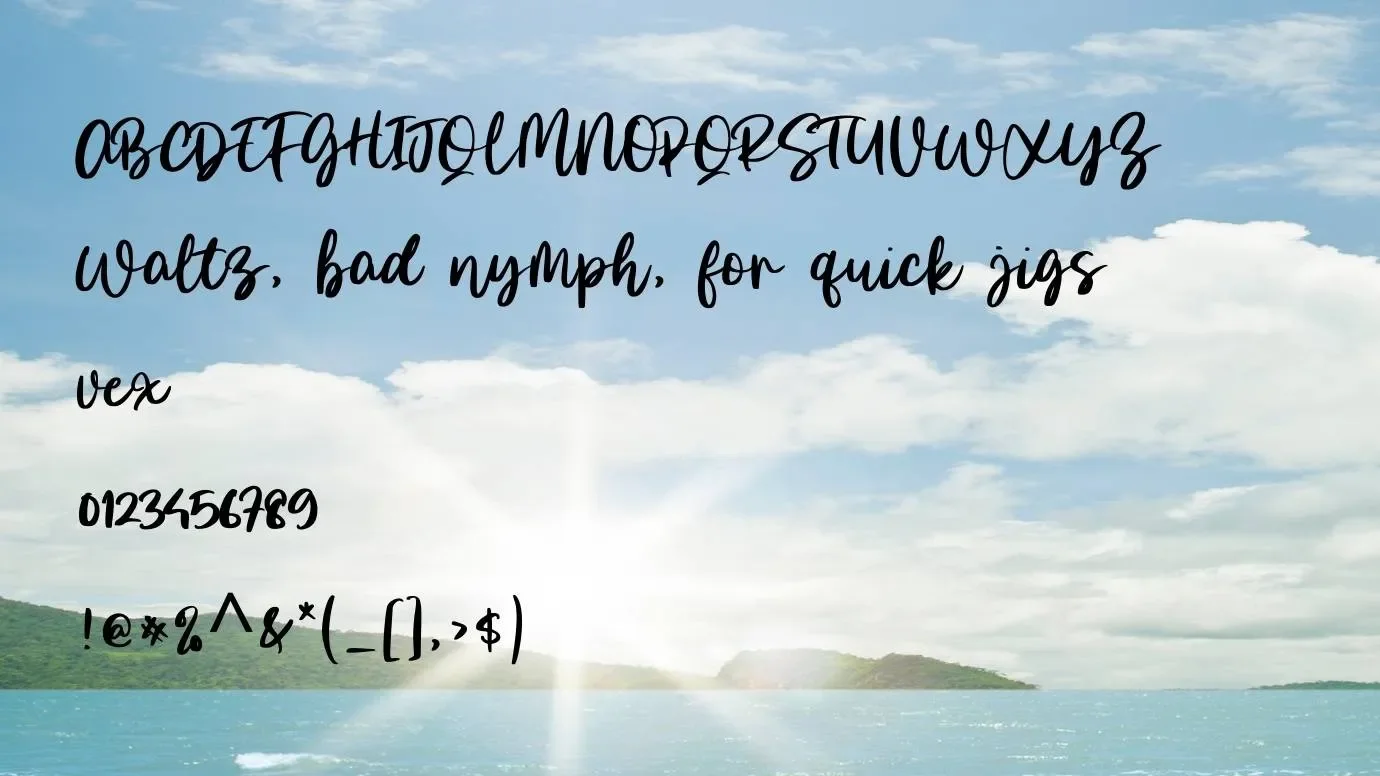
In this post, we will share with our readers a very fashionable and brush handwritten typeface that is known as Morning Glory Font, along with a dynamic and energetic style. The designer of this amazing typeface is a notable graphic designer named Collab Studio. It is perfectly used for many purposes like for titles, logos, signatures, fabric designs, letterheads, signage, newsletters, posters, and every other design which required a striking typeface.
This font comes in one regular style but has a complete set of characters including all case letters, texture ligatures, numerals, basic punctuations, unique glyphs, and swashes that increase the beauty of this typeface. It is pretty much better on various devices such as PC, IOS, MAC, Linux, and even great on Android devices.
Reason to Use Morning Glory Font
Due to its fashional brush-painted strokes and semi-bold look, it perfectly goes with the pairing of some other typefaces like Andora font. You can use this combination for your headlines and titling. It is also great for product titling, store/shop names, post headings, quotes, signatures, Letterheads, and many related things where you need a hand-made touch.
In addition, you can make such beautiful designs with the help of this typeface. It can use for creating your animated designs, video games, movie titling, T-shirt and Mug designs, Fashion related website templates, business cards, greeting cards, signage, newsletters, book covers, Powerpoint presentations, social media posts, advertising, book covers, and many more.
Is Morning Glory a good font?
With hand-drawn characters, high-quality ligatures, swashes, and unique glyphs, this is an amazing typeface for any type of design that needs a natural and humanist feel.